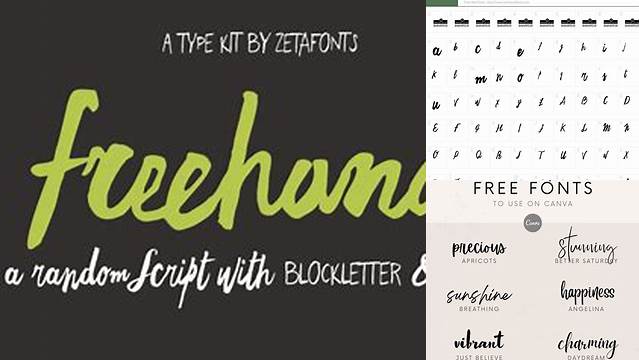
Freehand Script Fonts: Best Choices & How To Use Them
Hey guys! Ever wondered how to add that personal, handcrafted touch to your designs? Well, freehand script fonts are your answer! They bring a unique, human feel that can make your projects stand out. In this article, weβre diving deep into the world of freehand script fonts, exploring everything from their various styles to how you can use them effectively. So, grab a coffee, get comfy, and letβs jump in!
1. The Allure of Freehand Script Fonts
Freehand script fonts have this amazing ability to mimic natural handwriting, making them super appealing for projects where you want to convey warmth, authenticity, and a personal touch. Unlike more structured and formal fonts, these fonts have a flowing, organic quality that can instantly make your design feel more inviting and human. They can range from elegant and refined to playful and casual, offering a wide spectrum of options to suit different moods and styles. Whether you're designing a wedding invitation, a logo for a handcrafted product, or a blog header that needs a bit of personality, a well-chosen freehand script font can really elevate your work. The beauty of these fonts lies in their imperfections β the slight variations in line thickness, the unique curves and swashes, all contribute to a look that feels genuinely handwritten, rather than mechanically produced. This makes them perfect for projects that aim to connect with the audience on a more emotional level, creating a sense of intimacy and care.
2. Distinguishing Characteristics of Freehand Script Fonts
What exactly sets freehand script fonts apart from other font styles? Well, it's all in the details, guys. These fonts are designed to look as if they were written by hand, giving them a natural and fluid appearance. You'll often notice that the letters connect seamlessly, mimicking the continuous flow of handwriting. This connectedness is a key characteristic, distinguishing them from blocky or disjointed fonts. Another defining feature is the variation in stroke thickness. Just like when you write with a pen, the lines in these fonts can vary from thick to thin, adding to the organic feel. Swashes and decorative elements are also common, adding a touch of flair and personality. The slant of the letters is another important element; many freehand scripts have a slight incline, further enhancing the handwritten effect. But beyond these technical aspects, the most important characteristic is the emotional impact. These fonts evoke a sense of warmth, friendliness, and authenticity, making them ideal for projects that need a personal touch. Whether it's the gentle curve of a lowercase 'e' or the elegant loop of a capital 'L', every detail in a freehand script font contributes to its overall charm and appeal.
3. Different Styles of Freehand Script Fonts
Okay, let's talk variety! The world of freehand script fonts is vast and diverse, offering a style for just about every project you can imagine. First up, we have the classic calligraphy scripts, which are elegant and refined, perfect for wedding invitations and high-end branding. Think flowing lines, delicate swashes, and a generally sophisticated vibe. Then there are the modern scripts, which often have a cleaner, more contemporary feel, making them versatile for a wide range of applications. These might be a bit bolder and less ornate than classic calligraphy, but still retain that handwritten charm. For something more casual, you've got brush scripts, which mimic the look of brush lettering, with thick downstrokes and thin upstrokes. These are great for a playful and energetic feel. And don't forget the vintage or retro scripts, which evoke a nostalgic feel, perfect for designs that harken back to a bygone era. These might have a slightly rougher texture or a more pronounced slant. Finally, there are the whimsical or quirky scripts, which are all about fun and personality. These might have unusual letterforms or playful flourishes, making them ideal for children's books or lighthearted branding. The key is to explore the different styles and find the one that best matches the tone and purpose of your project.
4. Popular Freehand Script Fonts You Should Know
Ready to explore some specific fonts? There are so many fantastic freehand script fonts out there, it can be tough to know where to start. But don't worry, I've got you covered! One popular choice is Brush Script, a classic brush script that's been around for ages and is still widely used for its casual, friendly vibe. Then there's Pacifico, a super smooth and flowing script that's perfect for adding a touch of elegance to your designs. If you're looking for something more modern, Lobster is a great option, with its bold, condensed letters and distinctive style. For a touch of vintage charm, Bebas Neue (while technically a sans-serif, often used in combination with scripts) is a fantastic choice, offering a clean and stylish look. Great Vibes is another beautiful option, with its elegant loops and swashes, perfect for wedding invitations and formal events. And let's not forget Playlist Script, a hand-drawn brush script that's ideal for adding a personal touch to logos and branding materials. These are just a few examples, of course β there are countless other amazing freehand script fonts out there waiting to be discovered! The best way to find the perfect one for your project is to experiment and see what feels right.
5. Using Freehand Script Fonts in Branding
Okay, let's talk branding! Freehand script fonts can be a total game-changer when it comes to creating a brand identity that resonates with your audience. The key here is to think about the personality you want your brand to convey. If you're aiming for a warm, approachable, and personal feel, a freehand script font can be an excellent choice. Imagine a handcrafted goods business using a flowing, elegant script in their logo β it instantly communicates the care and attention to detail that goes into their products. Or a bakery using a playful, whimsical script, conveying a sense of fun and deliciousness. But remember, it's not just about the look; it's about the message. A freehand script can add a human touch, making your brand feel more relatable and authentic. This is especially important in today's world, where consumers are looking for genuine connections with the brands they support. However, it's crucial to use these fonts strategically. Overusing a script font can make your branding look cluttered or inconsistent. It's often best to pair a script font with a simpler, more readable font for body text or other elements. And make sure the script you choose aligns with your brand's overall aesthetic. A formal calligraphy script might not be the best fit for a tech startup, for example.
6. Freehand Script Fonts for Wedding Invitations
Planning a wedding? Freehand script fonts are your best friend when it comes to creating invitations that are as beautiful and unique as your big day. These fonts add a touch of elegance, romance, and personality that's hard to beat. Think about it β the invitation is the first glimpse your guests will get of your wedding style, so you want to make a statement! A flowing calligraphy script can set the tone for a formal, sophisticated affair, while a more casual script can be perfect for a rustic or bohemian wedding. The beauty of using a freehand script is that it feels personal and handcrafted, adding a special touch to your invitations. Imagine seeing your names beautifully scripted across the page β it just feels more intimate and memorable than a standard font. But when choosing a font, make sure it's legible! While those elaborate swashes and flourishes can look stunning, they shouldn't come at the expense of readability. You want your guests to be able to easily read the date, time, and location. It's also a good idea to consider the overall design of your invitation. Pair your script font with a complementary font for the other details, and think about the colors, paper, and any other embellishments. The goal is to create an invitation that's not only beautiful but also reflects your personal style as a couple.
7. Designing Logos with Freehand Script Fonts
Creating a logo that stands out? Freehand script fonts can be a fantastic tool in your design arsenal. They bring a unique, handcrafted feel that can make your logo instantly memorable. The trick is to choose a script that perfectly captures your brand's personality. If you're aiming for a high-end, luxurious vibe, an elegant calligraphy script can work wonders. But if you're going for something more playful and approachable, a casual brush script might be the better choice. Think about the message you want to convey. A script font can communicate a sense of warmth, authenticity, and personal connection, which can be especially valuable for brands that want to build trust and rapport with their customers. However, logo design is all about balance. While a script font can be eye-catching, it's essential to ensure it's legible and works well in various sizes and applications. You'll also want to consider how the script interacts with other elements in your logo, such as icons or taglines. Pairing it with a clean, simple sans-serif font can create a striking contrast and ensure readability. And remember, your logo is the face of your brand, so take the time to experiment and find a script that truly represents who you are.
8. Tips for Pairing Freehand Script Fonts
Okay, guys, let's talk font pairings! Using freehand script fonts effectively often means pairing them with another font to create a balanced and visually appealing design. The key is to create contrast. You generally don't want to pair two script fonts together, as this can look cluttered and overwhelming. Instead, think about pairing your script with a clean, simple font that will provide a nice counterpoint. A classic sans-serif font like Helvetica or Arial can be a great choice, offering a clean and modern look that complements the flowing lines of the script. Or, you might opt for a serif font like Times New Roman or Garamond, which can add a touch of elegance and sophistication. The goal is to create a visual hierarchy, where the script font is used for headlines or key elements, and the other font is used for body text or supporting information. Think about the overall tone of your design as well. If your script font is formal and elegant, you might want to pair it with a more refined serif font. But if your script is casual and playful, a simple sans-serif might be a better fit. And don't be afraid to experiment! Try out different combinations and see what looks best. Font pairing is an art, so it takes a bit of practice to get it just right.
9. The Importance of Legibility in Freehand Script Fonts
Alright, let's get real about legibility! Freehand script fonts are beautiful and expressive, but if your audience can't read them, what's the point? Legibility is absolutely crucial, especially when using these fonts in key elements like headlines or logos. The trick is to find a balance between style and readability. Some script fonts are highly ornate, with elaborate swashes and flourishes that can make them difficult to decipher at a glance. While these fonts can look stunning in certain contexts, they might not be the best choice for situations where clarity is paramount. Think about the size of the text, too. A script font that looks perfectly legible at a large size might become a jumbled mess when scaled down. That's why it's always a good idea to test your fonts at different sizes to ensure they remain readable. And consider the context in which the font will be used. If you're designing a website, for example, you'll want to choose a script font that's easy to read on screen. This might mean opting for a slightly simpler script with fewer decorative elements. Ultimately, the goal is to choose a font that not only looks beautiful but also effectively communicates your message. So, don't sacrifice legibility for style β find a script font that offers the best of both worlds.
10. Freehand Script Fonts for Digital Design
Let's talk digital, guys! Freehand script fonts can add a ton of personality to your digital designs, whether you're working on a website, a social media graphic, or an email newsletter. But there are a few things to keep in mind when using these fonts in the digital realm. First off, consider screen readability. Some script fonts that look great in print might not translate well to the screen, especially at smaller sizes. That's why it's important to choose fonts that are optimized for digital use. Look for scripts with clean lines and clear letterforms that will remain legible even on high-resolution displays. Font loading times are also a factor. Ornate script fonts with lots of details can sometimes slow down page loading, which can impact the user experience. So, it's a good idea to test your font choices and make sure they're not negatively affecting your site's performance. And think about how the script will interact with other elements on the page. Pair it with a clean, readable font for body text, and make sure the colors and spacing are working together to create a visually appealing design. Ultimately, using freehand script fonts in digital design is about finding the right balance between style and functionality. You want to add personality and flair, but you also want to ensure your message is clear and your website is user-friendly.
11. Using Freehand Script Fonts in Print Design
Now, let's flip the script and talk about print! Freehand script fonts are a classic choice for print design, from invitations and posters to brochures and business cards. In the print world, you have a bit more leeway when it comes to font choices, as you don't have to worry about screen readability or loading times in the same way. However, there are still some key considerations to keep in mind. Resolution is crucial. When using script fonts in print, you want to make sure they're high-resolution to avoid any pixelation or jagged edges. This is especially important for fonts with delicate lines or intricate details. Paper stock can also play a role. A smooth, high-quality paper will showcase your script font beautifully, while a rough or textured paper might make it look less crisp. And think about the overall design of your piece. How will the script font interact with other elements, such as images and text? Will it be the focal point, or a supporting element? The colors you choose can also impact how the script looks. A light, elegant script might get lost on a dark background, while a bold script could stand out beautifully. Ultimately, using freehand script fonts in print design is about paying attention to the details and ensuring that your font choice complements the overall aesthetic of your piece.
12. Freehand Script Fonts for Social Media Graphics
Want your social media graphics to pop? Freehand script fonts can be a fantastic way to add personality and flair to your posts. Whether you're creating an Instagram quote graphic, a Facebook cover photo, or a Twitter header, a well-chosen script font can help you grab attention and convey your message effectively. The key is to think about your brand's voice and the message you want to communicate. If you're aiming for a friendly, approachable vibe, a casual brush script can be a great choice. But if you want to project a more sophisticated image, an elegant calligraphy script might be a better fit. Legibility is especially important on social media, where users are often scrolling quickly through their feeds. So, choose a script font that's easy to read at a glance, even on small screens. And consider using contrast to make your text stand out. Pair your script font with a bold, contrasting background, or use a drop shadow to add depth. Think about the overall visual hierarchy of your graphic, too. Use your script font for headlines or key phrases, and a simpler font for supporting text. And don't be afraid to experiment with different fonts and styles to see what works best for your brand. Social media is all about visual appeal, so a well-chosen freehand script font can be a powerful tool in your design arsenal.
13. How to Choose the Right Freehand Script Font for Your Project
Okay, guys, let's get down to the nitty-gritty: how do you actually choose the right freehand script font for your project? With so many options out there, it can feel a bit overwhelming. But don't worry, I'm here to break it down for you. The first thing to consider is the tone and style of your project. What kind of message do you want to convey? Are you aiming for elegance and sophistication, or something more casual and playful? The script font you choose should align with the overall aesthetic of your design. Think about your target audience, too. What kind of fonts will resonate with them? If you're designing for a younger audience, a modern or quirky script might be a good choice. But if you're targeting a more mature demographic, a classic calligraphy script could be a better fit. Legibility, as we've discussed, is also crucial. Make sure the font you choose is easy to read, especially at smaller sizes. And consider the context in which the font will be used. Will it be used for headlines, body text, or logos? Some scripts are better suited for certain applications than others. Finally, don't be afraid to experiment! Try out different fonts and see what looks best. Font pairing tools and resources can be helpful in this process. The goal is to find a font that not only looks beautiful but also effectively communicates your message and enhances your overall design.
14. Common Mistakes to Avoid When Using Freehand Script Fonts
We all make mistakes, right? But when it comes to freehand script fonts, there are some common pitfalls you can easily avoid. One of the biggest mistakes is overusing script fonts. While they can add a touch of elegance and personality, using too many script fonts in one design can create a cluttered and overwhelming look. It's generally best to use a script font sparingly, for headlines or key phrases, and pair it with a simpler font for body text. Another common mistake is choosing a script font that's difficult to read. As we've emphasized, legibility is crucial. Don't sacrifice clarity for style. Make sure your font is easy to decipher, even at smaller sizes. And avoid using script fonts in all caps, as this can make them even harder to read. Poor font pairing is another frequent issue. Pairing a script font with another overly ornate font can create a visual clash. The key is to create contrast by pairing your script with a clean, simple font. And don't forget about spacing! Too little spacing between letters or lines can make your text look cramped and difficult to read. Make sure to adjust the kerning and leading to create a balanced and visually appealing look. By avoiding these common mistakes, you can use freehand script fonts effectively and create stunning designs that truly stand out.
15. The Psychology of Freehand Script Fonts
Let's get a little psychological, guys! Freehand script fonts aren't just about aesthetics; they also evoke certain emotions and associations. Understanding the psychology behind these fonts can help you use them more effectively in your designs. Script fonts, with their flowing lines and handwritten feel, often convey a sense of warmth, friendliness, and personal connection. They can make your design feel more human and approachable, which can be especially valuable for brands that want to build trust and rapport with their audience. Elegant calligraphy scripts, with their delicate swashes and refined curves, tend to evoke a sense of luxury, sophistication, and tradition. They're often used in wedding invitations, high-end branding, and formal events. Casual brush scripts, on the other hand, have a more playful and energetic vibe. They can make your design feel more fun and approachable, which can be great for brands targeting a younger audience. Vintage or retro scripts evoke a sense of nostalgia and history. They can be perfect for designs that harken back to a bygone era. The key is to choose a script font that aligns with the emotions and associations you want to evoke. Think about your target audience and the message you want to communicate, and choose a font that will help you achieve your goals.
16. Free vs. Premium Freehand Script Fonts
Okay, let's talk money! When it comes to freehand script fonts, you've got two main options: free fonts and premium fonts. Both have their pros and cons, so it's important to understand the differences before making a decision. Free fonts can be a great option if you're on a budget or just starting out. There are tons of free script fonts available online, offering a wide range of styles and aesthetics. However, the quality of free fonts can vary significantly. Some free fonts are beautifully designed and highly polished, while others might have some rough edges or limitations. Licensing is also an important consideration. Make sure you understand the terms of use for any free font you download, as some might have restrictions on commercial use. Premium fonts, on the other hand, typically offer higher quality and more features. They're often designed by professional typographers and come with extensive character sets, multiple weights, and other advanced features. Premium fonts also tend to have more robust licensing terms, allowing you to use them in a wider range of projects. The downside, of course, is that premium fonts cost money. But if you're working on a high-profile project or need a font that's guaranteed to be top-notch, a premium script font can be a worthwhile investment.
17. Where to Find High-Quality Freehand Script Fonts
So, you're on the hunt for some awesome freehand script fonts? Great! But where do you actually find them? The internet is overflowing with fonts, but not all of them are created equal. You want to make sure you're downloading fonts from reputable sources that offer high-quality designs and clear licensing terms. One of the best places to start is Google Fonts. Google Fonts offers a fantastic selection of free, open-source fonts, including a variety of script fonts. The fonts are all web-optimized and easy to use, making them a great choice for both web and print projects. DaFont is another popular resource for free fonts. They have a huge library of fonts in various styles, including lots of script fonts. However, it's important to check the licensing terms for each font you download from DaFont, as some might have restrictions on commercial use. Font Squirrel is another great option, offering a curated selection of high-quality free fonts. They also have a handy Font Identifier tool that can help you identify fonts you see in images. Creative Market and MyFonts are excellent resources for premium fonts, but they also offer a selection of free fonts each week. So, it's worth checking them out regularly to see what's available. By exploring these resources, you'll be well on your way to finding the perfect freehand script font for your next project.
18. The Future of Freehand Script Fonts in Design
Let's gaze into our crystal ball, guys! What does the future hold for freehand script fonts in design? Well, I think it's safe to say that these fonts aren't going anywhere anytime soon. The demand for authentic, human-feeling designs is only going to increase, and freehand scripts are perfectly positioned to meet that need. We're likely to see even more variety and innovation in script font design. Designers are constantly pushing the boundaries, experimenting with new styles and techniques to create unique and expressive fonts. Think about the rise of digital hand lettering and calligraphy β this trend is likely to influence script font design in the years to come. Technology is also playing a role. With the advent of variable fonts, designers have more control over the weight, width, and other characteristics of their fonts. This means we'll see even more customizable and versatile script fonts in the future. And as artificial intelligence and machine learning become more prevalent, we might even see AI-powered font creation tools that can generate unique script fonts based on specific parameters. Ultimately, the future of freehand script fonts is bright. As long as there's a desire for designs that feel personal and authentic, these fonts will continue to play an important role in the design world.
19. Freehand Script Fonts and Accessibility
Accessibility is key, guys! When using freehand script fonts, it's super important to think about how accessible they are to everyone, including people with disabilities. After all, what's the point of a beautiful design if some people can't read it? Legibility is the biggest factor here. As we've discussed, some script fonts can be difficult to read, especially for people with visual impairments or dyslexia. So, it's crucial to choose fonts that are clear and easy to decipher. Avoid overly ornate scripts with lots of swashes and flourishes, and make sure your font is large enough and has sufficient contrast with the background. Font pairing can also play a role in accessibility. Pairing your script font with a clean, readable font for body text can help ensure that your content is accessible to a wider audience. And think about the overall design of your piece. Use clear and concise language, and avoid cluttering your design with too many elements. There are also some helpful tools and guidelines you can use to ensure your designs are accessible. The Web Content Accessibility Guidelines (WCAG) offer a comprehensive set of recommendations for making web content more accessible. By keeping accessibility in mind when using freehand script fonts, you can create designs that are not only beautiful but also inclusive.
20. The Emotional Impact of Freehand Script Fonts
Let's get in touch with our feelings, guys! Freehand script fonts have a powerful emotional impact, and understanding this can help you use them more effectively in your designs. These fonts, with their handwritten feel, evoke a sense of warmth, authenticity, and personal connection. They make your design feel more human and approachable, which can be especially valuable for brands that want to build trust and rapport with their audience. Think about the last time you received a handwritten card or letter. It probably felt more personal and meaningful than a typed message, right? That's the kind of emotional connection that freehand script fonts can create. Different script styles evoke different emotions. Elegant calligraphy scripts, with their delicate lines and refined curves, tend to evoke a sense of luxury, sophistication, and romance. They're often used in wedding invitations and high-end branding because they convey a sense of timeless elegance. Casual brush scripts, on the other hand, have a more playful and energetic vibe. They can make your design feel more fun and approachable, which can be great for brands targeting a younger audience or those looking to create a lighthearted feel. The key is to choose a script font that aligns with the emotions you want to evoke. Think about your target audience and the message you want to communicate, and select a font that will help you connect with them on an emotional level.
21. Combining Freehand Script Fonts with Other Design Elements
Design harmony, anyone? Freehand script fonts don't live in a vacuum! They need to play nicely with other design elements to create a cohesive and visually appealing piece. The way you combine script fonts with other elements, like images, colors, and typography, can make or break your design. When it comes to images, think about the overall mood and style you're trying to create. A flowing script font can pair beautifully with soft, romantic imagery, while a bold brush script might work well with edgy, urban photos. Colors also play a crucial role. A delicate script font might get lost against a busy or dark background, so choose colors that provide sufficient contrast. Think about the psychology of color, too. Warm colors like red and orange can evoke excitement and energy, while cool colors like blue and green can create a sense of calm and tranquility. And don't forget about typography! The fonts you choose for headings, body text, and other elements should complement your script font. As we've discussed, pairing a script font with a clean, simple font is often the best approach. Spacing and layout are also important considerations. Give your elements room to breathe, and use whitespace strategically to create a balanced and visually appealing design. By paying attention to these details, you can create designs that are not only beautiful but also effective in communicating your message.
22. The Evolution of Freehand Script Fonts Through Time
Let's take a trip down memory lane, guys! The story of freehand script fonts is a fascinating one, stretching back centuries. These fonts have evolved over time, reflecting changes in writing styles, technology, and design trends. The roots of script fonts can be traced back to calligraphy, the art of beautiful handwriting. Calligraphy flourished in ancient civilizations, and various calligraphic styles influenced the development of early script fonts. As printing technology emerged, type designers sought to mimic the look and feel of handwriting in typeface form. Early script fonts were often based on formal calligraphic styles, reflecting the elegance and sophistication of handwritten manuscripts. In the 20th century, new script styles emerged, reflecting changing design aesthetics and printing techniques. Brush scripts, with their bold strokes and dynamic energy, became popular in advertising and graphic design. The digital age has brought even more innovation to script font design. Font designers now have a wide range of tools and technologies at their disposal, allowing them to create highly detailed and expressive script fonts. We've seen a resurgence of hand-lettered and calligraphic styles in recent years, reflecting a desire for more authentic and human-feeling designs. The evolution of freehand script fonts is an ongoing process, and it will be fascinating to see what the future holds.
23. The Role of Freehand Script Fonts in Calligraphy and Lettering
Okay, let's talk connections! Freehand script fonts have a deep connection to calligraphy and lettering, and understanding this relationship can help you appreciate these fonts even more. Calligraphy is the art of beautiful handwriting, and it's the foundation upon which many script fonts are based. Traditional calligraphy styles, like copperplate and Spencerian, have heavily influenced the design of elegant script fonts. Lettering, on the other hand, is the art of drawing letters. Unlike calligraphy, which emphasizes the flow and rhythm of handwriting, lettering is more about creating individual letterforms with precision and intention. Many modern script fonts draw inspiration from hand-lettering techniques, incorporating unique letterforms and stylistic flourishes. The rise of digital hand-lettering has blurred the lines between calligraphy, lettering, and font design. Digital artists use tablets and styluses to create beautiful hand-lettered pieces, which can then be turned into fonts. Freehand script fonts play a crucial role in both calligraphy and lettering. They provide a digital alternative to traditional handwriting techniques, allowing designers to incorporate the beauty and personality of hand-lettering into their projects without having to physically write or draw each letter. The connection between freehand script fonts and calligraphy and lettering is a testament to the enduring appeal of handcrafted design.
24. Using Freehand Script Fonts for Invitations and Announcements
Party time, guys! Freehand script fonts are a fantastic choice for invitations and announcements, adding a touch of elegance and personality to your special occasions. Whether you're planning a wedding, a birthday party, a baby shower, or any other event, a well-chosen script font can set the tone and convey the excitement of the occasion. Invitations are all about making a first impression, and a beautiful script font can instantly make your guests feel special. Think about the style of your event. A formal wedding invitation might call for an elegant calligraphy script, while a casual birthday party invitation could benefit from a more playful brush script. Announcements, like birth announcements or graduation announcements, are also a great opportunity to use a script font. A handwritten-style font can add a personal touch, making your announcement feel more intimate and heartfelt. When choosing a script font for invitations and announcements, remember to prioritize legibility. Make sure your guests can easily read the key information, such as the date, time, and location. Pair your script font with a clean, readable font for other details, like the dress code or RSVP information. And don't forget about the overall design of your invitation or announcement. The colors, paper stock, and other design elements should complement your script font and create a cohesive and visually appealing piece.
25. The Use of Freehand Script Fonts in Film and Television
Lights, camera, action! Freehand script fonts have a long and storied history in film and television, adding a touch of style and personality to everything from movie titles to television show credits. Think about some of your favorite movies and TV shows β chances are, you've seen a script font in action. Script fonts can be used to convey a wide range of moods and styles. A formal calligraphy script might be used to evoke a sense of elegance and sophistication, while a bold brush script could create a more edgy and contemporary feel. In movie titles, script fonts are often used to create a memorable and visually striking opening sequence. They can set the tone for the film and give the audience a sense of what's to come. In television show credits, script fonts can add a personal touch, giving the show a unique identity. Script fonts are also used in advertising for film and television. Movie posters and trailers often feature script fonts to grab attention and convey the film's style and genre. The use of freehand script fonts in film and television is a testament to their versatility and enduring appeal. These fonts can add a touch of class, personality, and visual flair to the screen, making them a valuable tool for filmmakers and television producers.
26. Freehand Script Fonts and Cultural Influences
Let's get global, guys! Freehand script fonts are influenced by a wide range of cultures and traditions, reflecting the diverse history of handwriting and calligraphy around the world. Different cultures have developed unique writing styles, and these styles have influenced the design of script fonts. Western calligraphy, with its elegant curves and flowing lines, has had a significant impact on the development of many script fonts used today. Styles like copperplate and Spencerian, which originated in Europe and North America, are the inspiration for countless script typefaces. Eastern calligraphy traditions, such as Chinese and Japanese calligraphy, have also influenced script font design. These styles often emphasize brushstrokes and the use of negative space, creating a unique aesthetic. Arabic calligraphy, with its intricate and flowing script, has also had a notable influence on script fonts. The elegant curves and connecting letters of Arabic script are often incorporated into script typeface designs. In addition to calligraphy, other cultural traditions have influenced script font design. Hand-lettered signs and posters from various cultures have inspired designers to create fonts that reflect the unique character of these styles. The cultural influences on freehand script fonts are a testament to the rich history of writing and typography around the world. By understanding these influences, you can gain a deeper appreciation for the artistry and craftsmanship behind script font design.
27. The Ethical Considerations of Using Freehand Script Fonts
Let's talk ethics, guys! When using freehand script fonts, it's important to consider the ethical implications of your font choices. This includes respecting font licenses, avoiding cultural appropriation, and ensuring accessibility. Font licenses are legal agreements that outline how you can use a font. It's crucial to read and understand the license for any font you use, whether it's a free or premium font. Some licenses might restrict commercial use, while others might allow it with certain limitations. Cultural appropriation is another important ethical consideration. Avoid using script fonts that are based on specific cultural traditions in a way that is disrespectful or insensitive. Do your research and make sure you're using fonts in a culturally appropriate manner. Accessibility, as we've discussed, is also key. Choose script fonts that are legible and accessible to people with disabilities. Avoid using fonts that are too ornate or difficult to read. In addition to these considerations, it's also important to be mindful of the message you're communicating with your font choices. Avoid using script fonts in a way that perpetuates stereotypes or biases. By considering the ethical implications of using freehand script fonts, you can ensure that your designs are not only beautiful but also responsible and respectful.
28. How to Create Your Own Freehand Script Fonts
Feeling creative, guys? If you're up for a challenge, why not try creating your own freehand script fonts? It's a rewarding process that allows you to express your unique style and create fonts that are perfectly tailored to your needs. The first step is to familiarize yourself with the basics of typography. Understanding letterforms, spacing, and kerning is essential for creating a well-designed font. You'll also need to choose a medium for creating your font. You can use traditional methods like pen and paper, or digital tools like tablets and styluses. If you're working digitally, you'll need font creation software. There are several options available, including FontLab Studio, Glyphs, and FontForge. Once you have your tools and software, you can start sketching your letterforms. Experiment with different styles and techniques until you find a look you like. Once you're happy with your sketches, you can digitize them and refine your letterforms in your font creation software. This involves creating vector outlines of your letters and adjusting the spacing and kerning. Creating a font can be a time-consuming process, but it's also incredibly rewarding. The sense of accomplishment you'll feel when you see your own font in action is truly special.
29. The Benefits of Using Freehand Script Fonts in Marketing Materials
Marketing magic, guys! Freehand script fonts can be a powerful tool in your marketing arsenal, helping you create materials that grab attention, convey your brand's personality, and connect with your target audience. In today's competitive market, it's more important than ever to stand out from the crowd. Script fonts can help you do just that, adding a touch of visual flair and personality to your marketing materials. Script fonts can help you convey your brand's personality. A formal calligraphy script might be perfect for a luxury brand, while a casual brush script could be ideal for a brand targeting a younger audience. Script fonts can also help you connect with your audience on an emotional level. The handwritten feel of script fonts can evoke feelings of warmth, authenticity, and personal connection. This can be especially valuable for brands that want to build trust and rapport with their customers. When using script fonts in marketing materials, remember to prioritize legibility. Make sure your text is easy to read, even at smaller sizes. And consider using script fonts sparingly, for headlines or key phrases, and pairing them with a simpler font for body text. By using freehand script fonts strategically in your marketing materials, you can create a more engaging and effective message that resonates with your target audience.
30. Freehand Script Fonts and Personal Expression
Last but not least, guys, let's talk about personal expression! Freehand script fonts are a fantastic way to express your unique personality and style in your designs. Whether you're creating a logo, a website, a social media graphic, or any other project, your font choices can say a lot about you. Script fonts, with their handwritten feel, are particularly expressive. They allow you to inject your own personal touch into your designs, making them feel more authentic and heartfelt. Choosing a script font is a way of expressing your aesthetic preferences. Do you prefer elegant and refined styles, or something more casual and playful? Your font choices can reflect your personal taste and create a design that is truly unique. Using script fonts in personal projects, like invitations, cards, or letters, is a great way to add a personal touch. A handwritten-style font can make your message feel more intimate and meaningful. Experimenting with different script fonts is a fun way to explore your creativity and develop your own design style. Don't be afraid to try new things and push the boundaries. By using freehand script fonts to express yourself, you can create designs that are not only beautiful but also reflect your unique personality and perspective. And that's what it's all about, right?